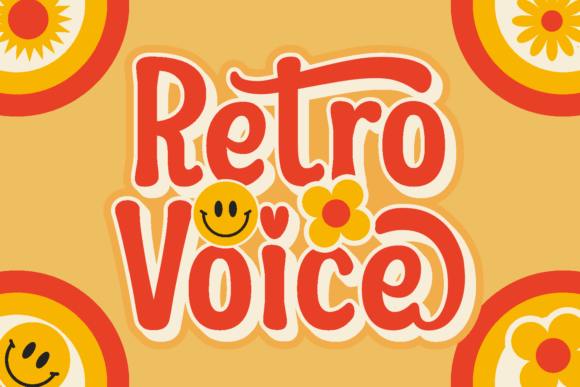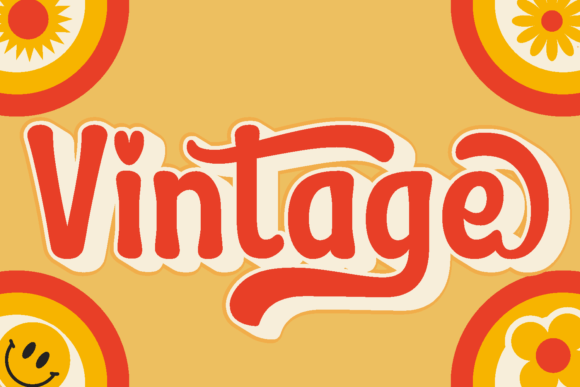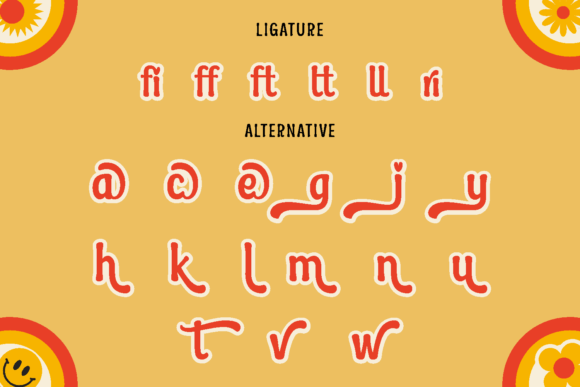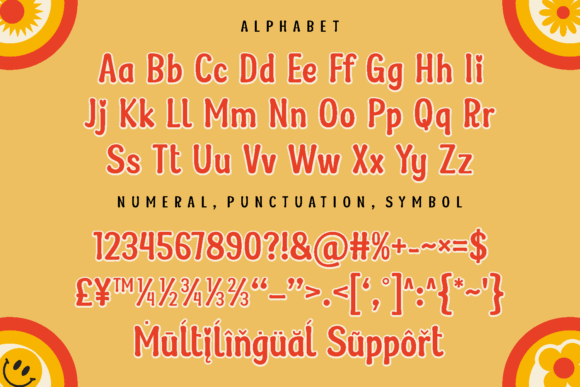
Introduction to Retro Grils Font
Introducing an extraordinary amalgamation of typography – from the retro vibes of the groovy 70s to the unique notes of the modern era.
Invoking yesteryear’s nostalgia with every curve, this assortment excels in displaying an array of themes suitable for any crafts or sublimation design An excellent choice for SVG design applications and particularly favored by Cricut users, this collection offers styles from stylish to elegant, perfect for fashion or branding projects.